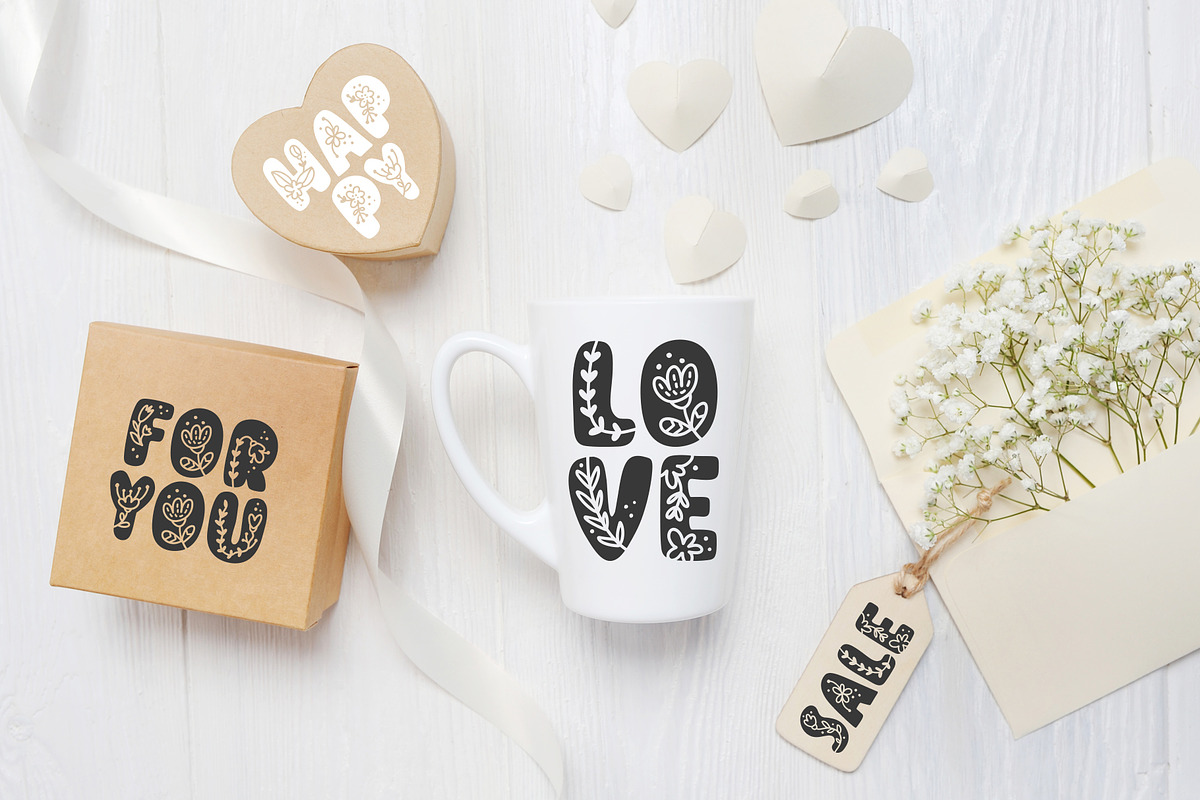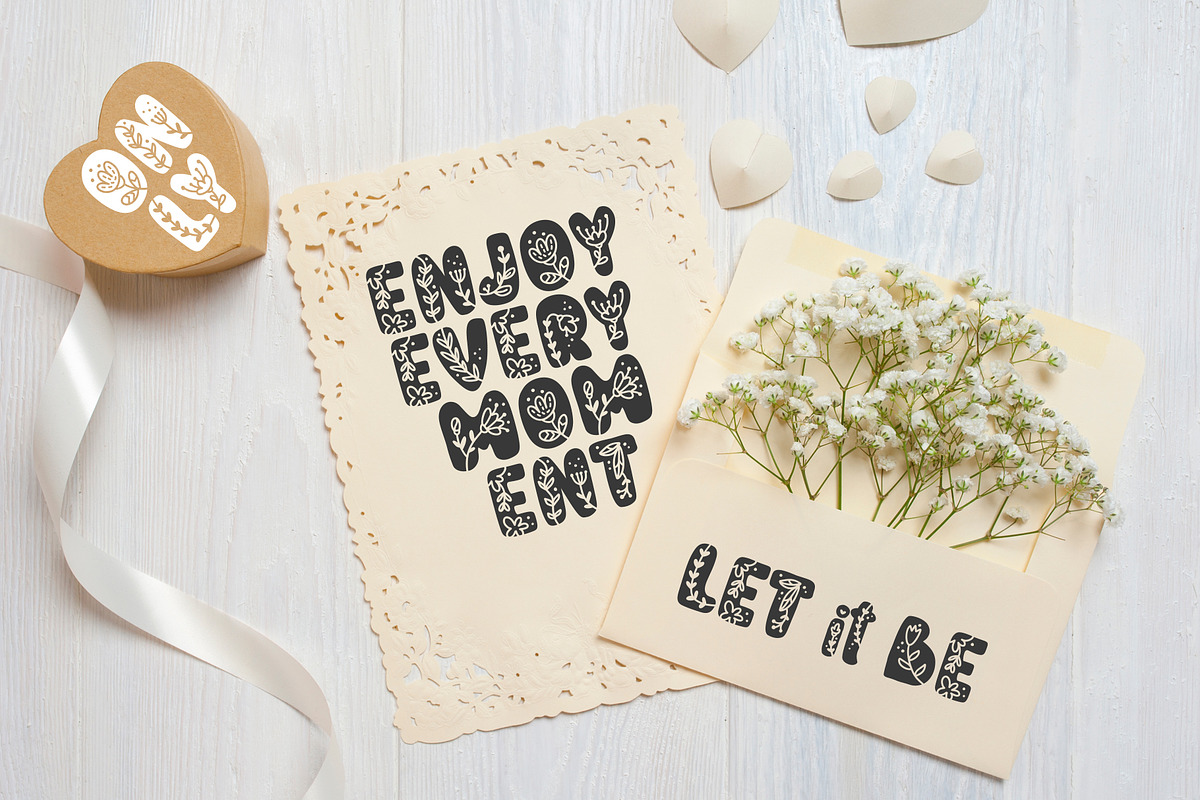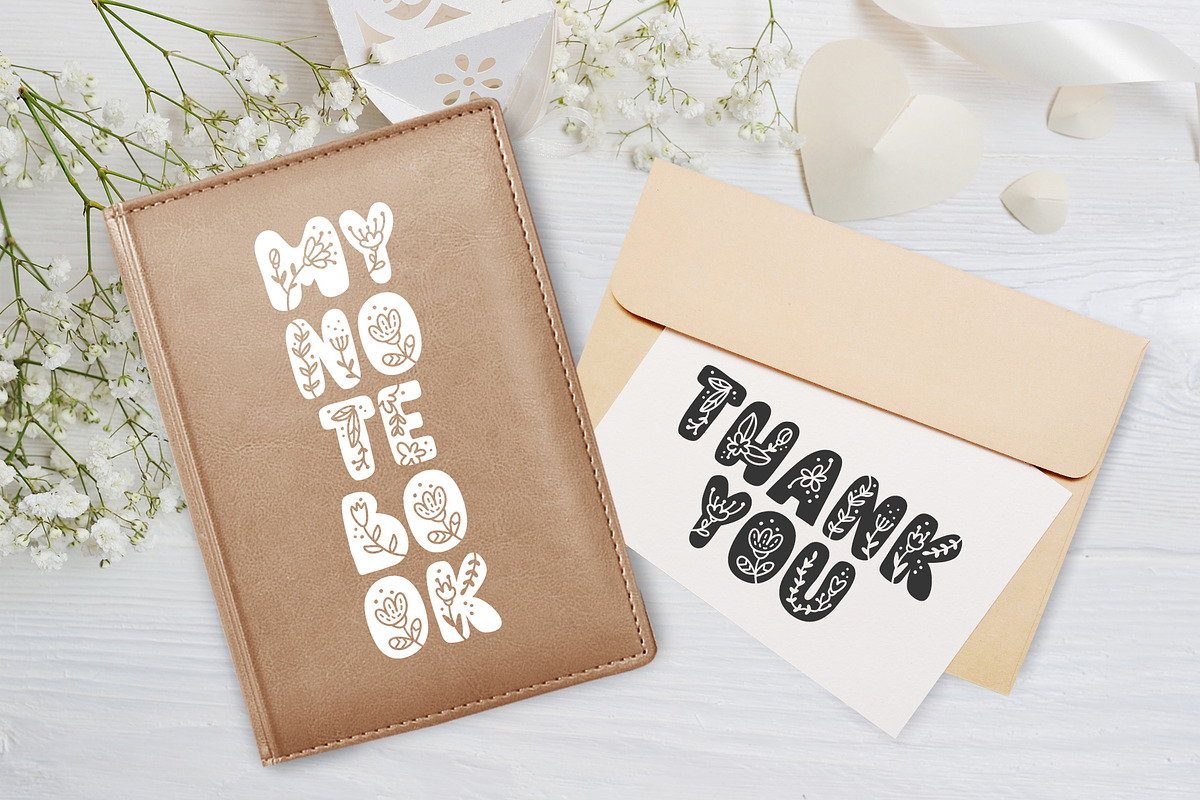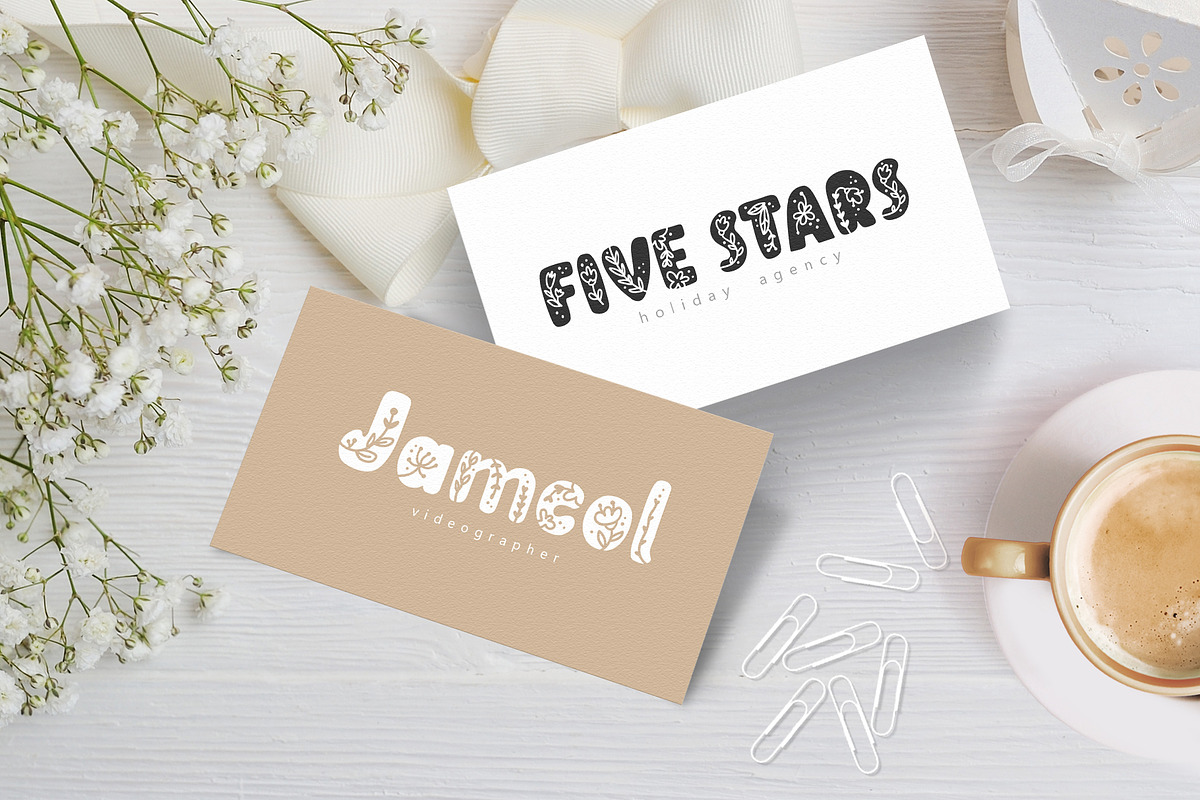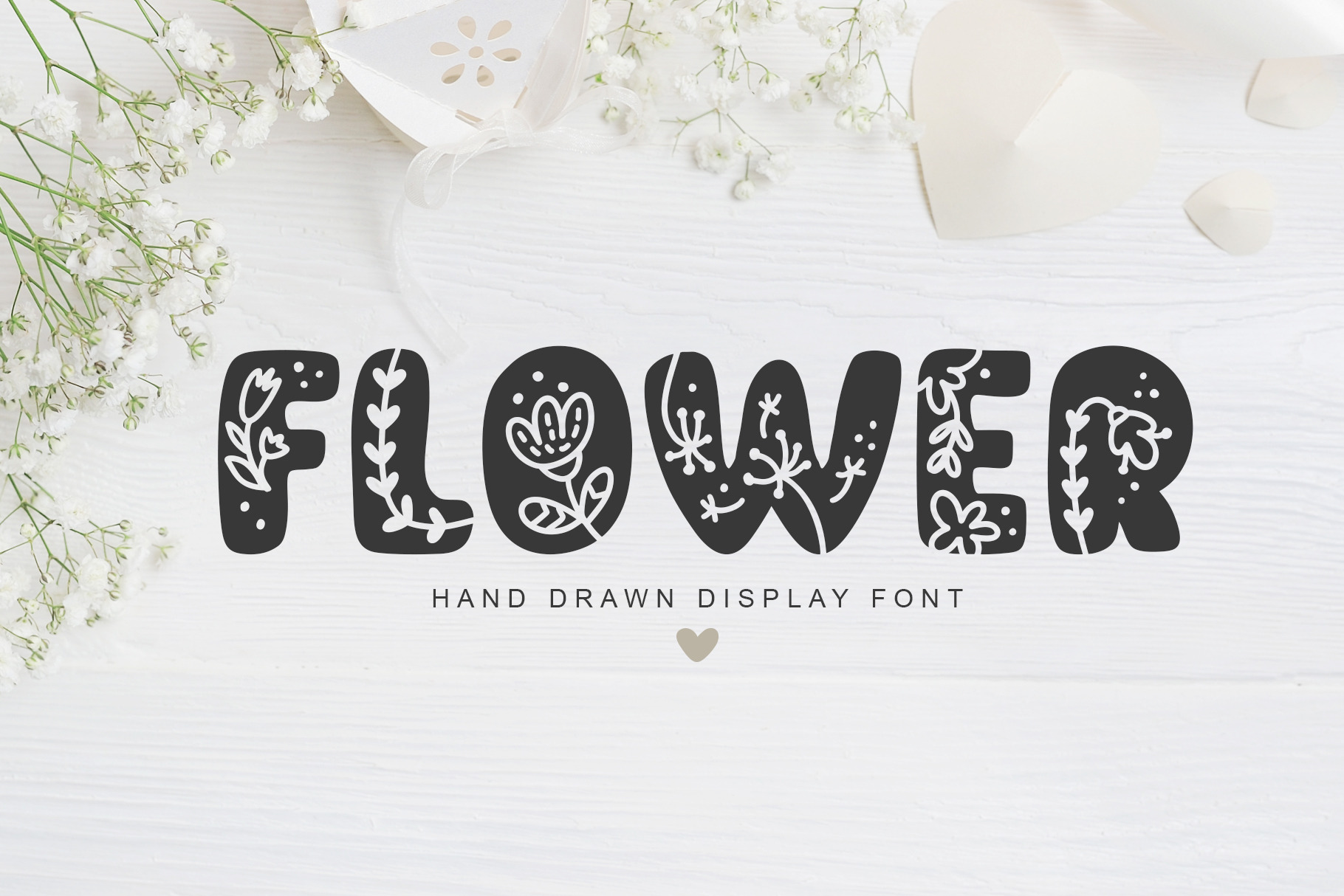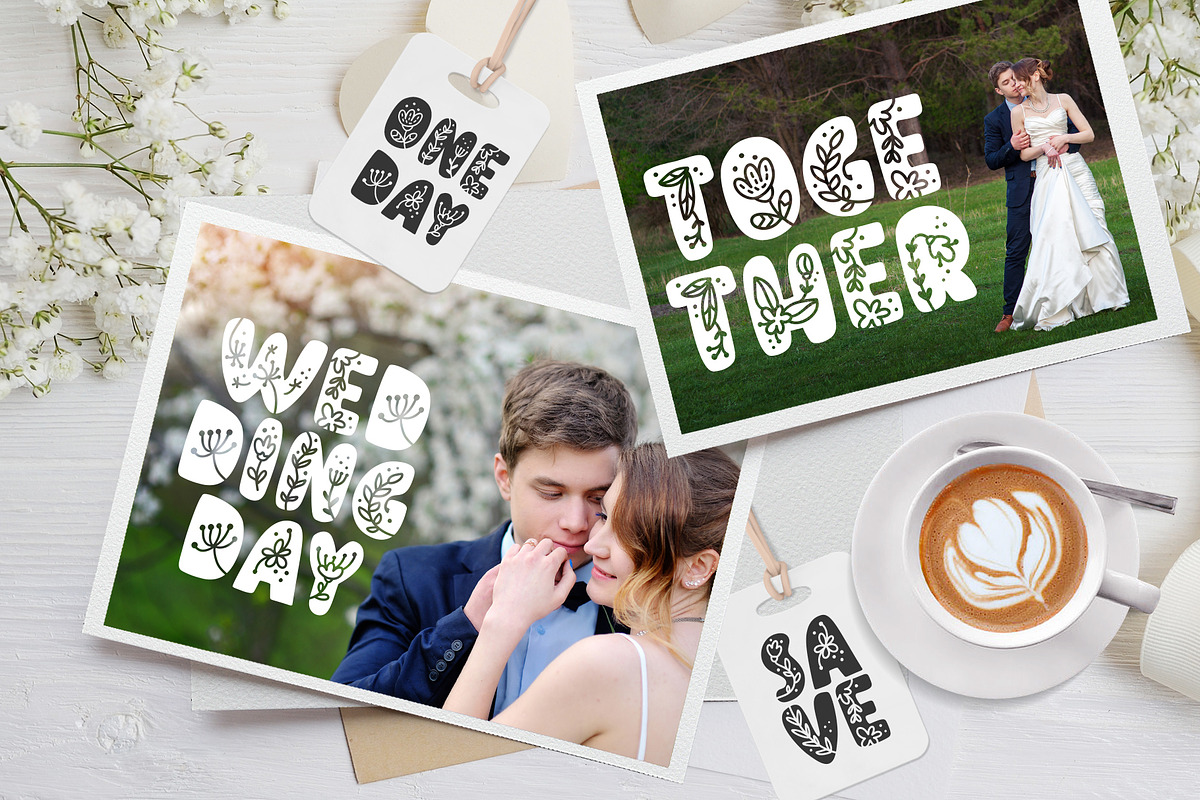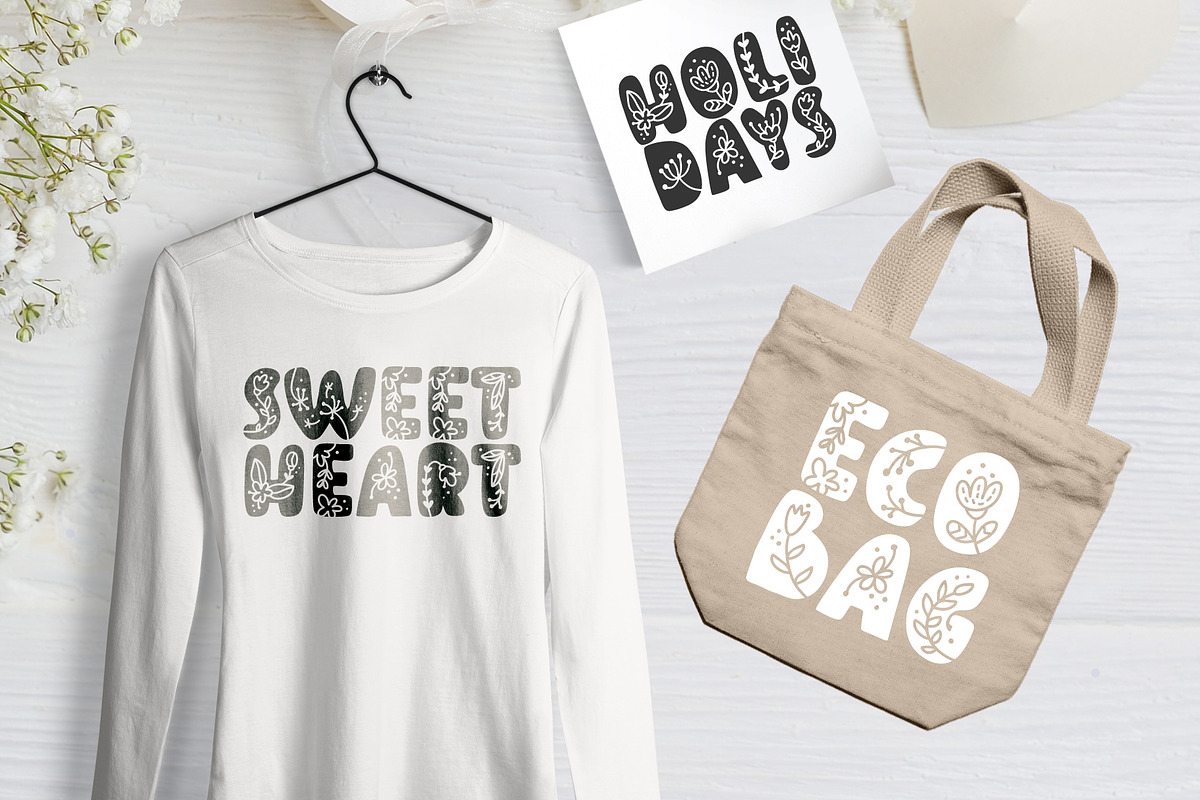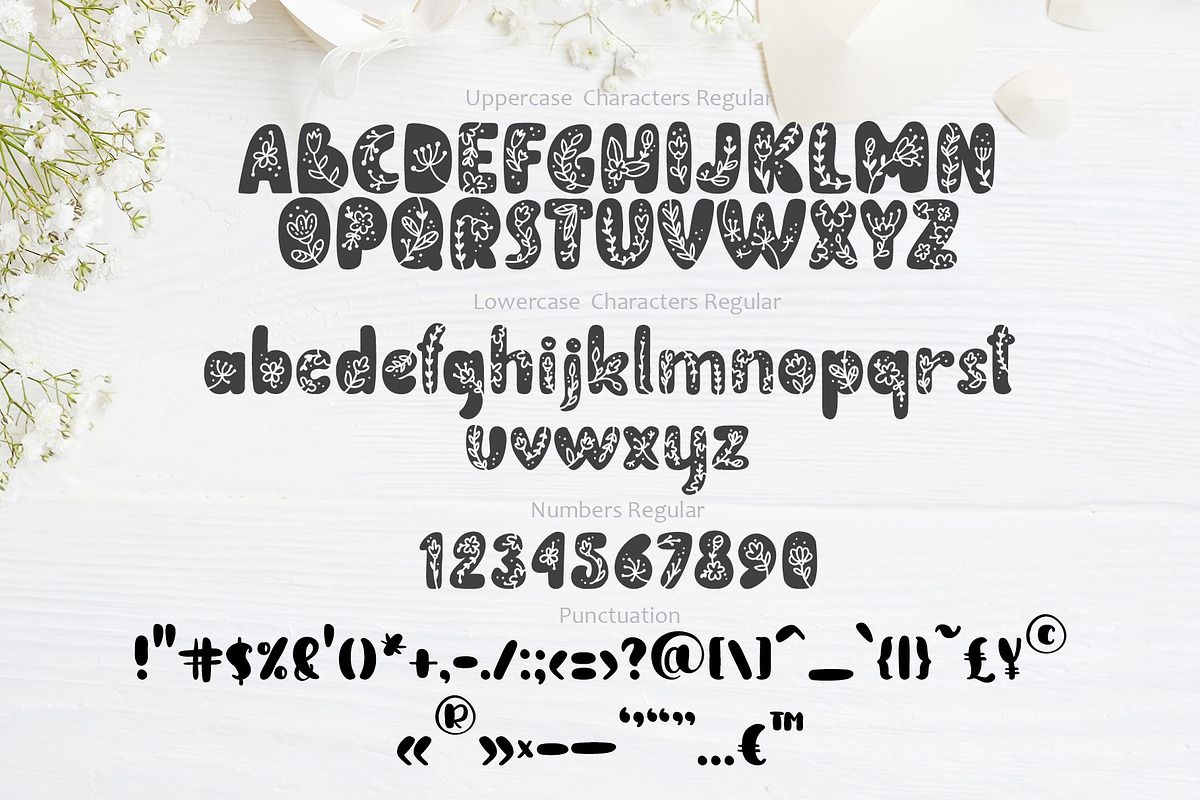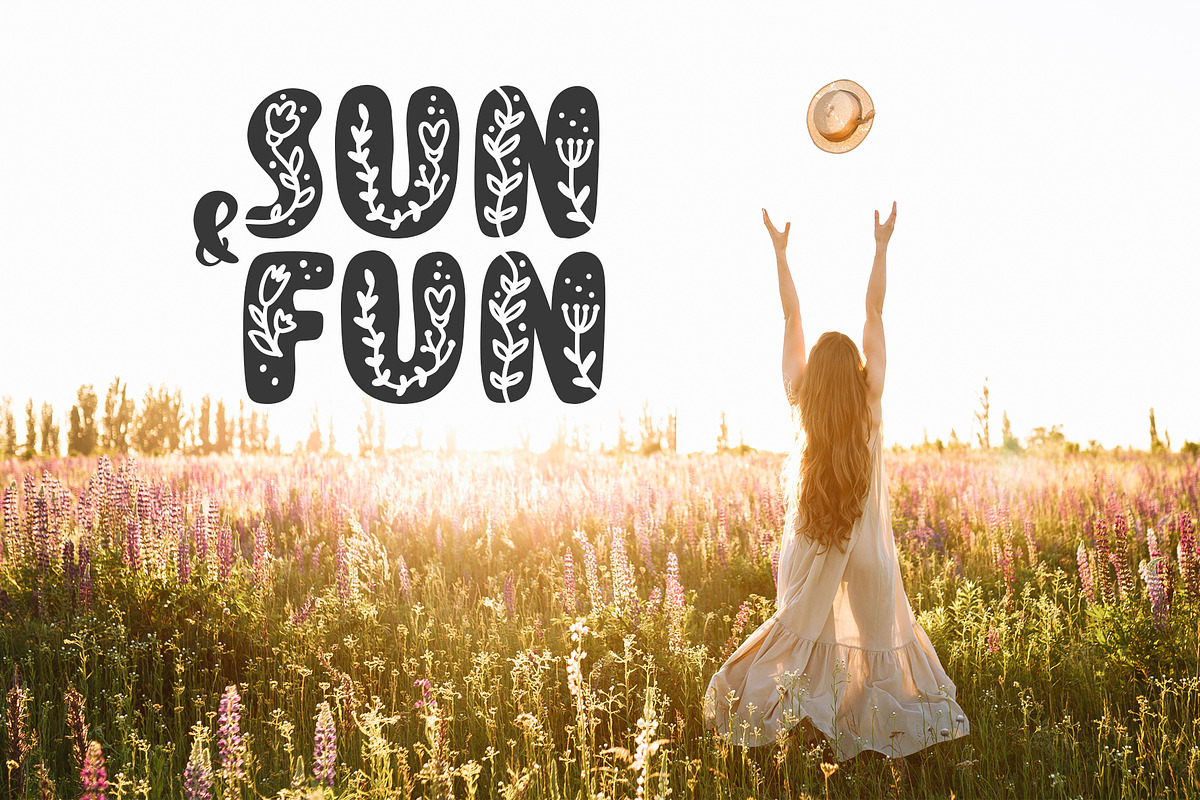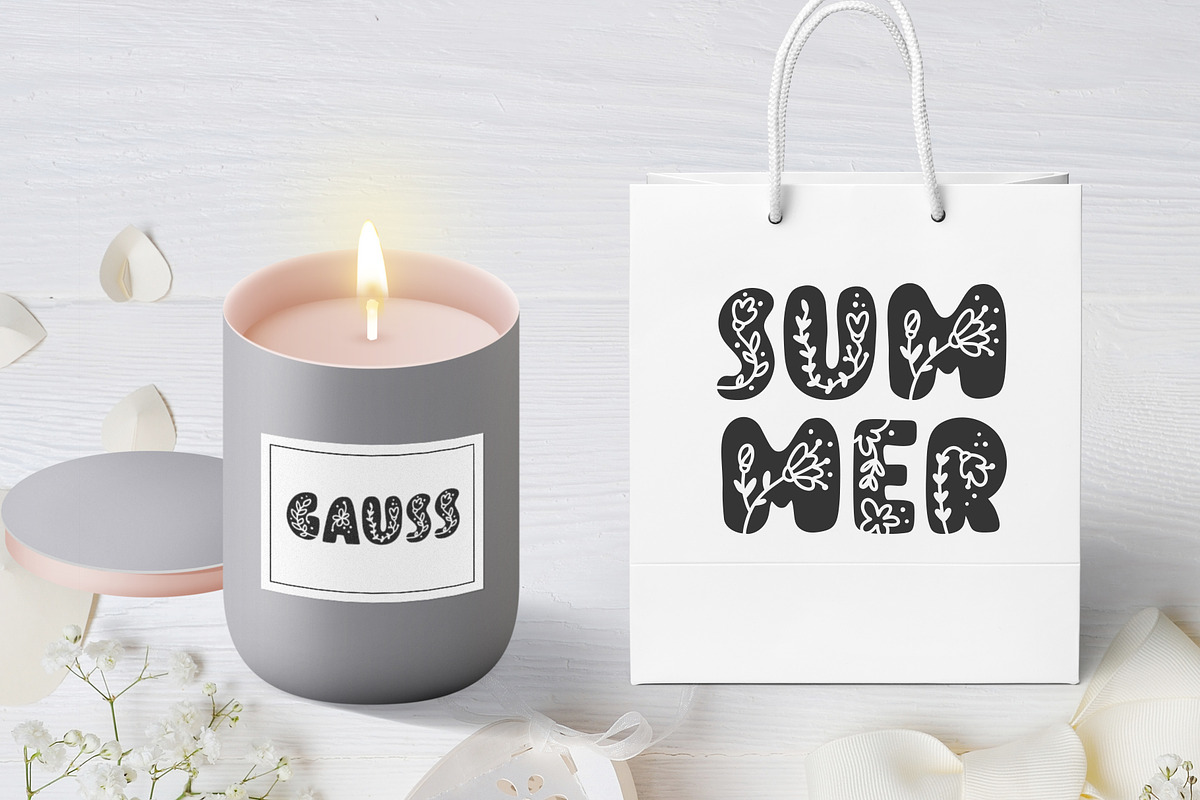
Flower Hand Drawn display Font
Flower Hand Drawn display Font includes unique letters with flourish monoline hearts, spring flowers and swirls insert. It's fine for wedding or Valentines ornament greeting cards, logo, invitations, etc. Elegant ethnic calligraphic lines give romantic freshness to your handmade design.
Hand drawn scandinavian display Valentine's Font is mapped to regular keyboard keys. Regular is with summer ornament. You don't need any additional programs to use them. Just install font, type and go!
PERFECT FOR
Decorate your albums, wedding and holiday greeting cards (Birthday, Valentine's Day, Mothers Day Father Day, Christmas and other holidays), logos, gift shops, nordic tag, social media, Instagram, Facebook, internet shops presentation.